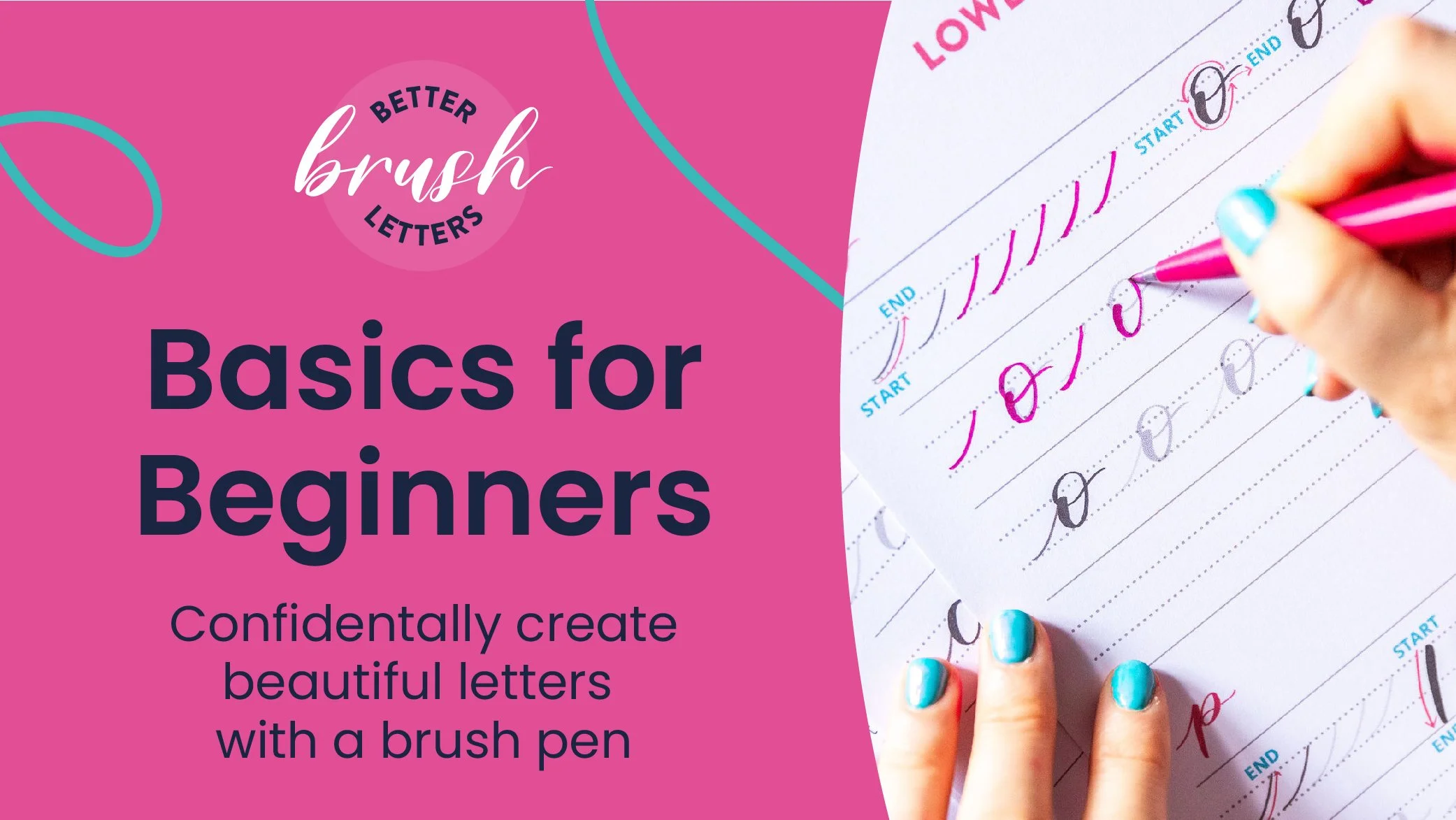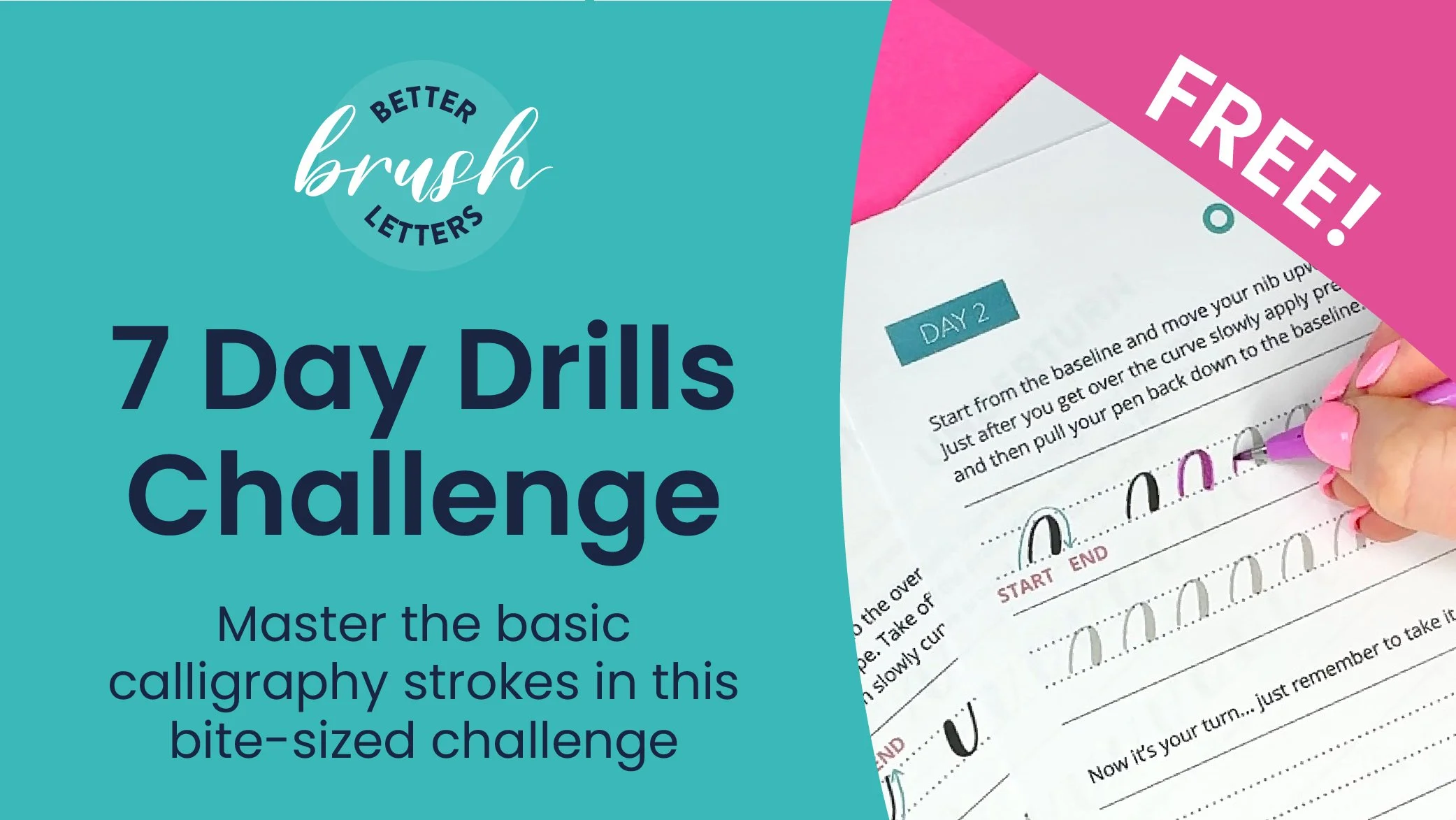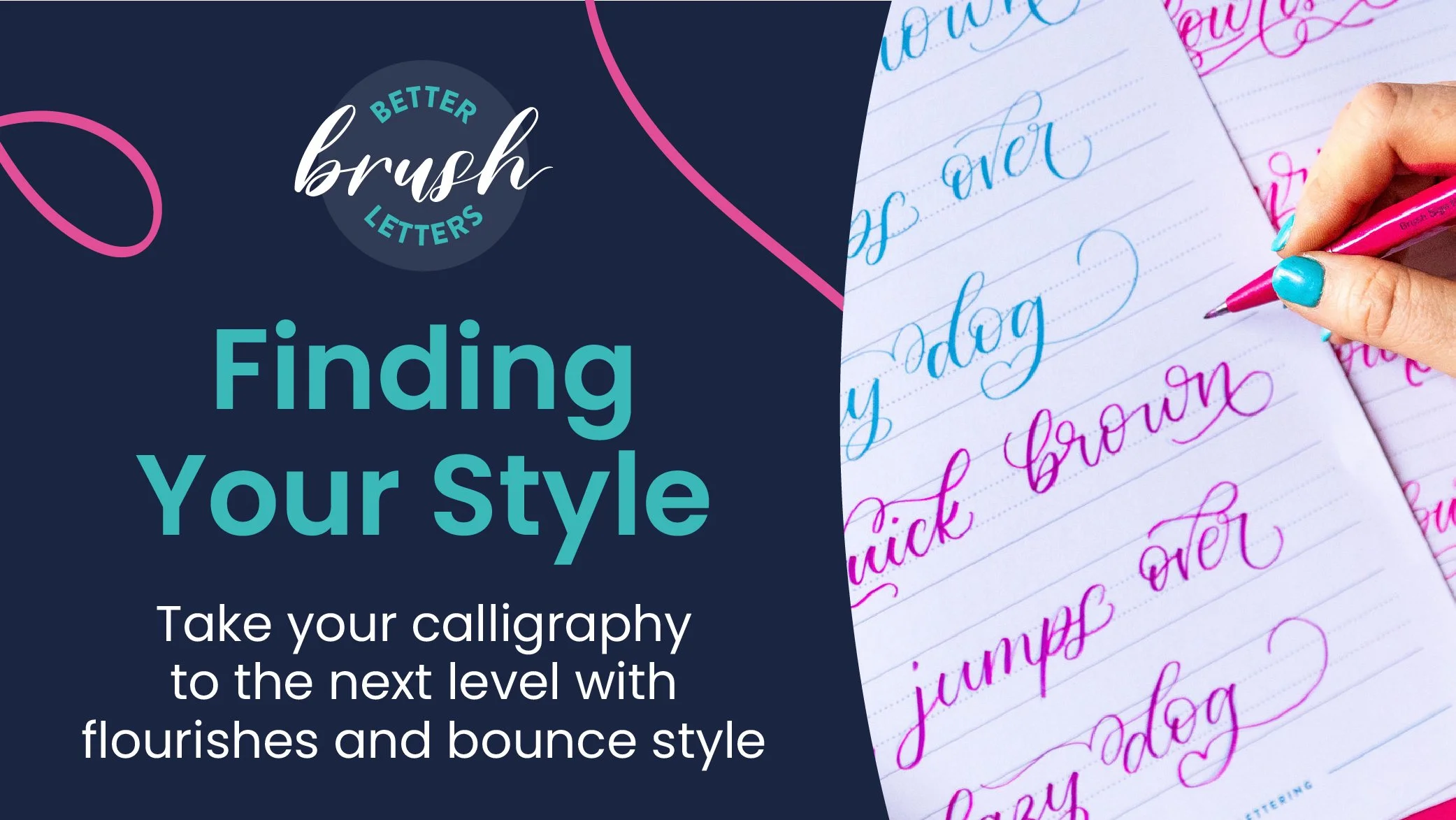
Discover fun, interactive online calligraphy courses that bring the joy of beautiful writing straight to your living room. Perfect for beginners and enthusiasts alike, our classes make learning calligraphy exciting, creative, and totally stress-free. Dive in today and transform your handwriting into a work of art—all from the comfort of home!
Better Brush Letters is a series of courses that will teach you everything to do with calligraphy from the basics of calligraphy all the way to giving the confidence to create your own style.
7 Day Drills Challenge
Learn the basic calligraphy drills for FREE! These funny little squiggles will help you build the muscle memory you need to create beautiful letters.
Basics for Beginners
Turn your calligraphy drills into beautiful letters and words. This 6 week course takes you through the lower and uppercase alphabet, plus connecting letters and even numbers!
Finding your style
Take your calligraphy to the next level in this fun course where you will discover how to do bounce calligraphy, create beautiful flourishes and understand composition for calligraphy quotes.